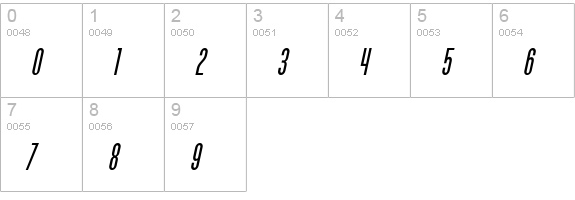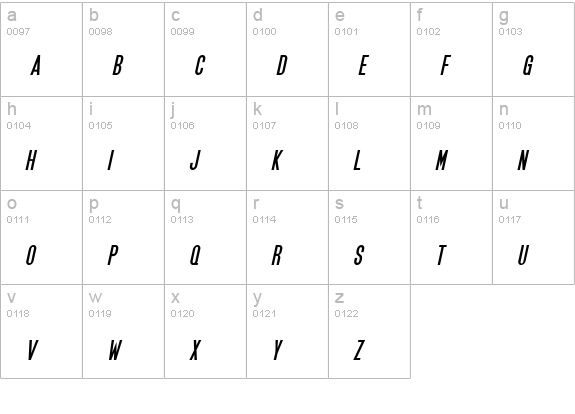
SF Movie Poster Bold Oblique is a strong, high-contrast, italic variant in the SF typeface family \xE2\x80\x94 well suited to headlines, attention-grabbing titles, and strong calls-to-action.
Introducing SF Movie Poster Bold Oblique font, a striking and captivating typeface that will transport you to thrilling and futuristic worlds. This font exudes an air of mystery and excitement, perfect for capturing the essence of science fiction on any movie poster or promotional material. The bold and oblique design of SF Movie Poster grabs attention and demands to be noticed. Its sleek and angular letterforms create a sense of movement and energy, evoking the dynamic and fast-paced nature of the science fiction genre. This font is truly a visual feast for the eyes, leaving a lasting impression on any viewer. What sets SF Movie Poster Bold Oblique font apart is its accessibility. In addition to its remarkable design, it is freely available to download at FontsMarket.com. This means that filmmakers, designers, and enthusiasts alike can incorporate this stunning font into their projects without any limitations or constraints. Whether you're working on a futuristic action film, a mind-bending thriller, or an otherworldly adventure, SF Movie Poster Bold Oblique font is the perfect choice to bring your vision to life. With its versatility and striking appearance, it adds an extra layer of excitement and intrigue to any visual project. So, don't miss out on this incredible font. Visit FontsMarket.com today and download SF Movie Poster Bold Oblique font for free. Unleash your creativity and take your science fiction designs to new heights with this exceptional typeface.